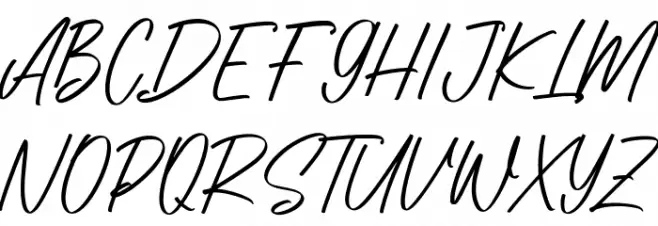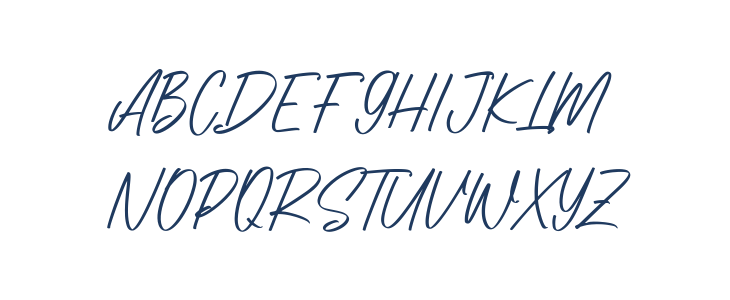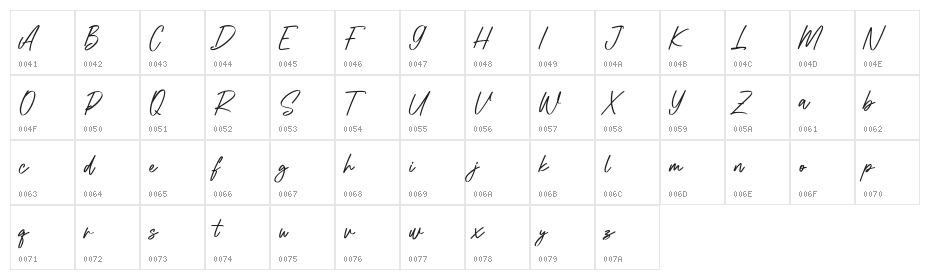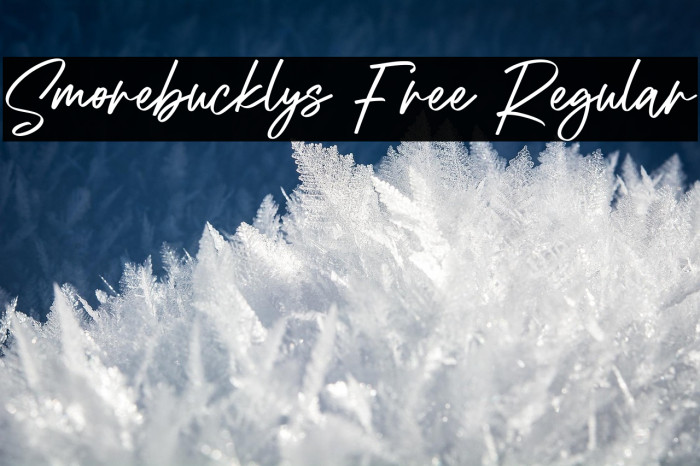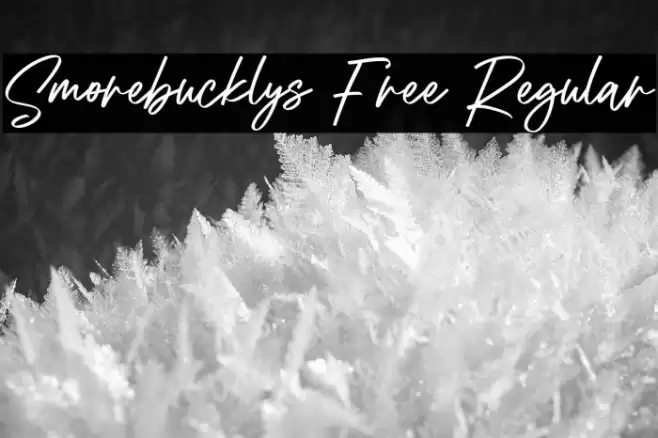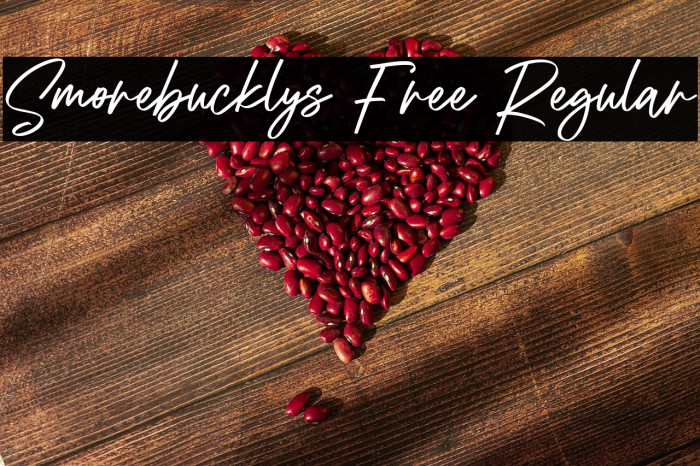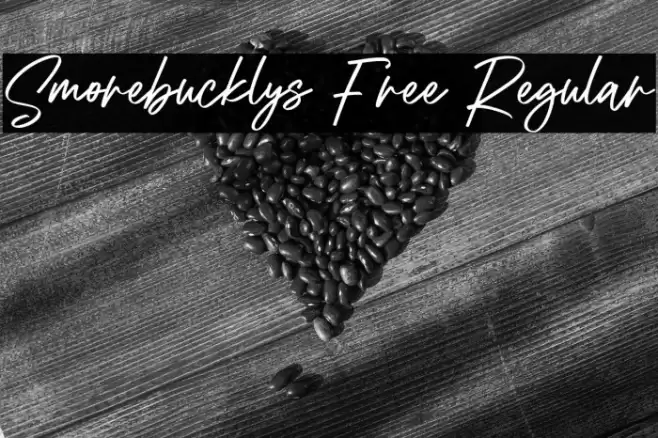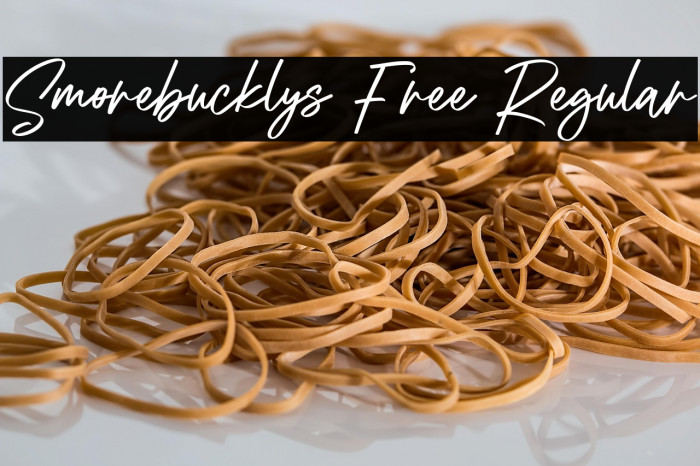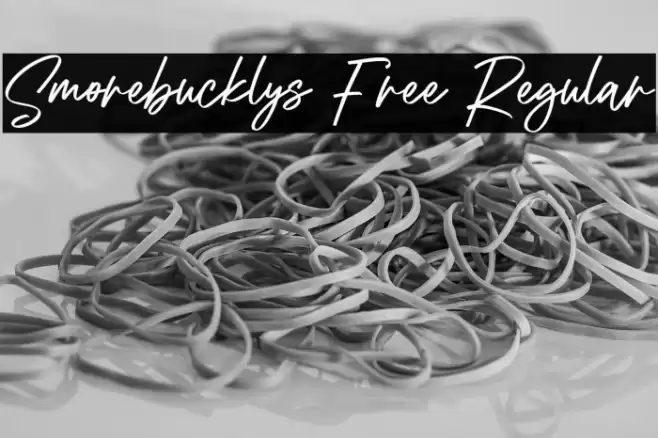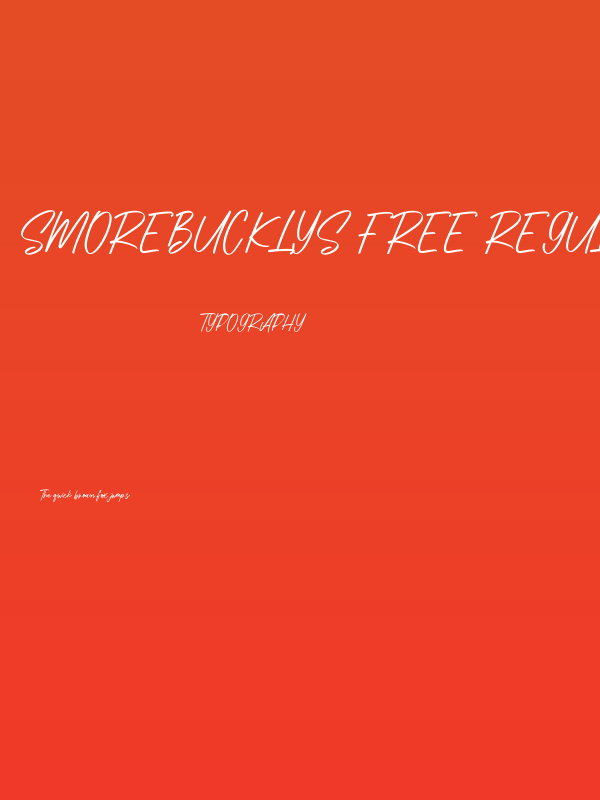
Smorebucklys Free Regular Font
Smorebucklys Free Regular Description
A cursive, handwritten style font with a smooth, flowing appearance, featuring thin and slightly slanted characters.
| Overall Style | Elegant, Personal, Casual |
| Use Case | Headlines, Personal notes, Invitations, Logos |